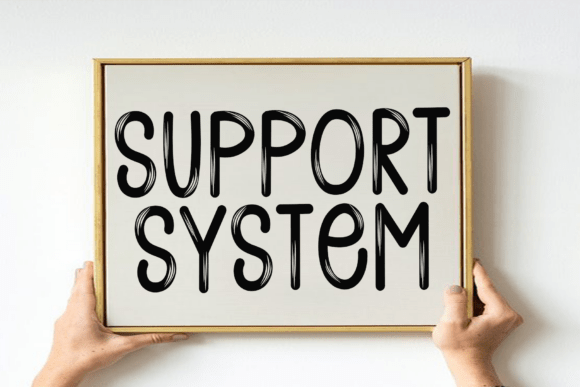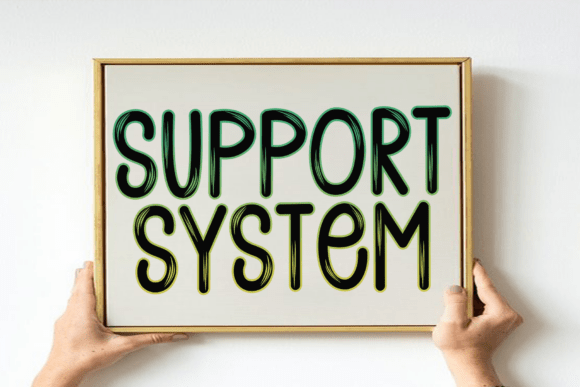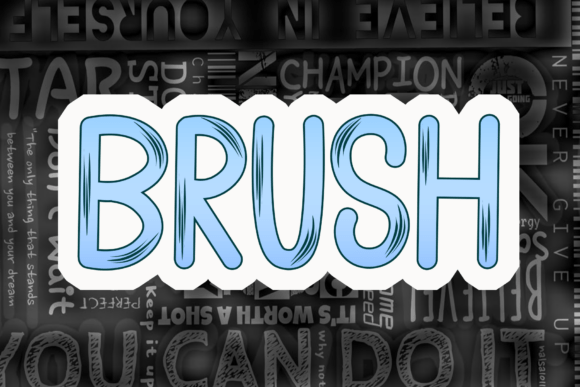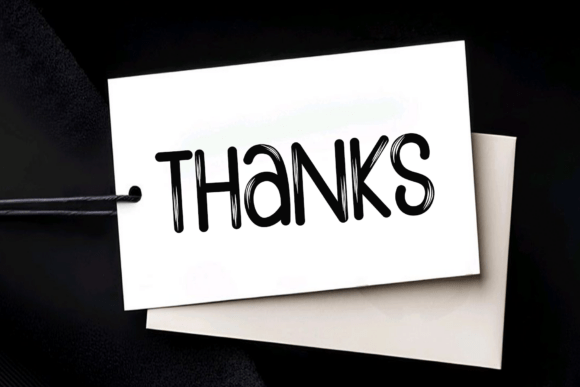
Introducing Happy Font: The Perfect Handwritten Font for Unique Designs
Are you tired of using the same old fonts for your designs? Do you want to add a touch of personality and whimsy to your creations? Look no further than Happy Font, a delicate handwritten font carefully crafted for a cool and unique design. In this article, we’ll dive into the features and benefits of Happy Font, and explore how you can use it to take your designs to the next level.
What is Happy Font?
Happy Font is a beautiful, handwritten font that is perfect for designers and crafters looking to add a personal touch to their work. With its delicate and elegant lines, Happy Font is ideal for creating unique and eye-catching designs that stand out from the crowd. Whether you’re designing invitations, titles, or packaging for food products, Happy Font is the perfect choice.
Key Features of Happy Font
- Handwritten with love: Happy Font is carefully crafted by hand, giving it a personal and unique feel that’s hard to replicate with digital fonts.
- Delicate and elegant: The font features delicate lines and elegant curves, making it perfect for designs that require a touch of sophistication.
- Cool and unique: Happy Font has a distinctive look that’s sure to turn heads and set your designs apart from the competition.
- Versatile: Happy Font can be used for a wide range of design projects, from letters and invitations to food products and titles.
Uses for Happy Font
Happy Font is a versatile font that can be used in a variety of design projects. Here are some ideas to get you started:
- Invitations: Use Happy Font to create beautiful, one-of-a-kind invitations for weddings, birthday parties, and other special occasions.
- Food products: Add a touch of personality to your food product labels and packaging with Happy Font.
- Titles and headings: Use Happy Font to create eye-catching titles and headings for your blog posts, articles, and other written content.
- Letters and cards: Write personal, handwritten-style letters and cards with Happy Font.
Benefits of Using Happy Font
So why choose Happy Font for your design projects? Here are just a few benefits of using this unique and beautiful font:
- Stand out from the crowd: Happy Font is a one-of-a-kind font that’s sure to set your designs apart from the competition.
- Add a personal touch: With its handwritten feel, Happy Font adds a personal touch to your designs that’s hard to replicate with digital fonts.
- Versatile: Happy Font can be used in a wide range of design projects, from digital designs to print materials.
Tips for Using Happy Font
Here are a few tips for getting the most out of Happy Font:
- Experiment with different colors: Happy Font looks great in a variety of colors, so don’t be afraid to experiment and find the perfect hue for your design.
- Pair with other fonts: Happy Font pairs well with other fonts, so try combining it with a bold font for a striking contrast.
- Use it sparingly: Because Happy Font is so eye-catching, it’s best to use it sparingly to avoid overwhelming your design.